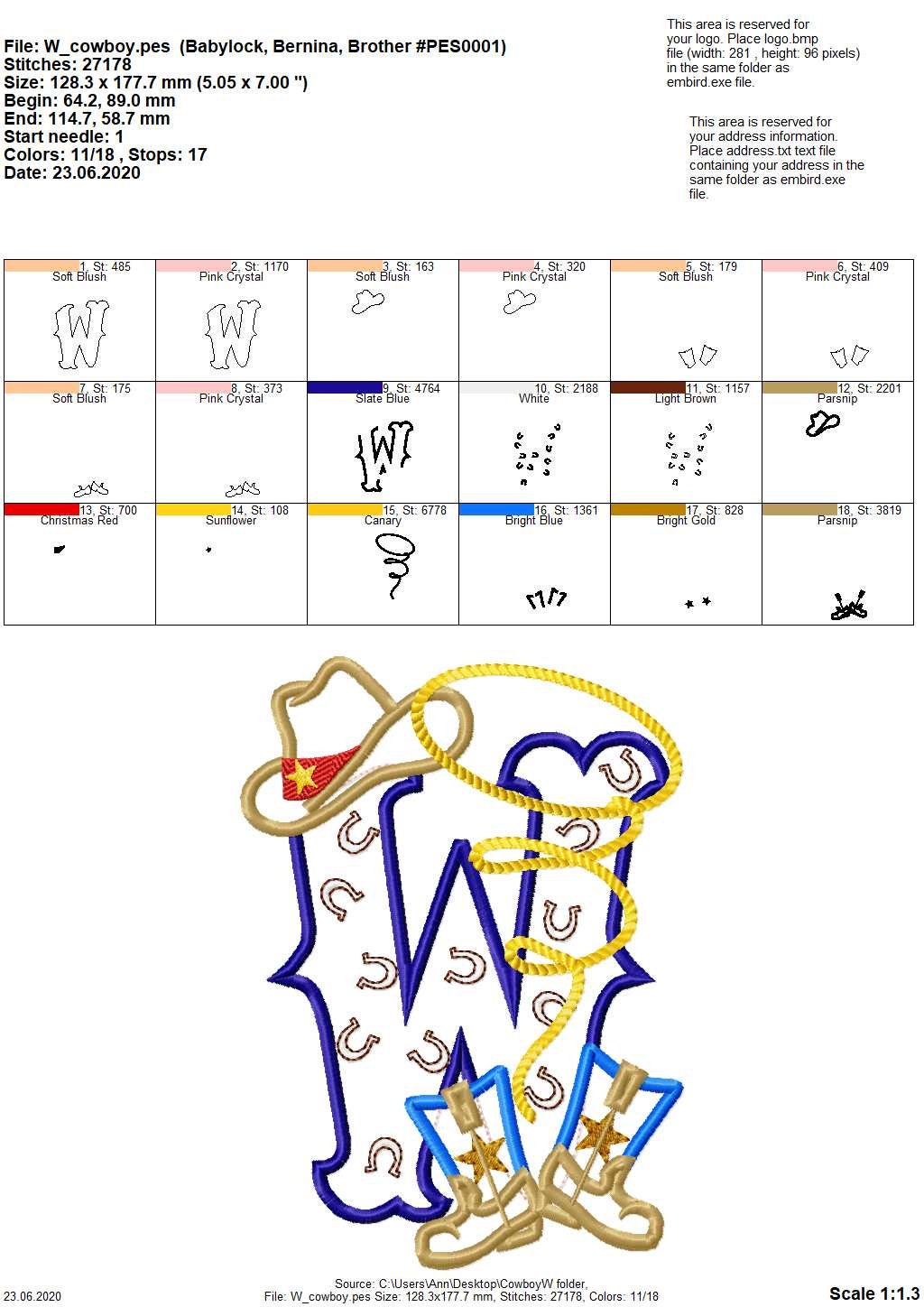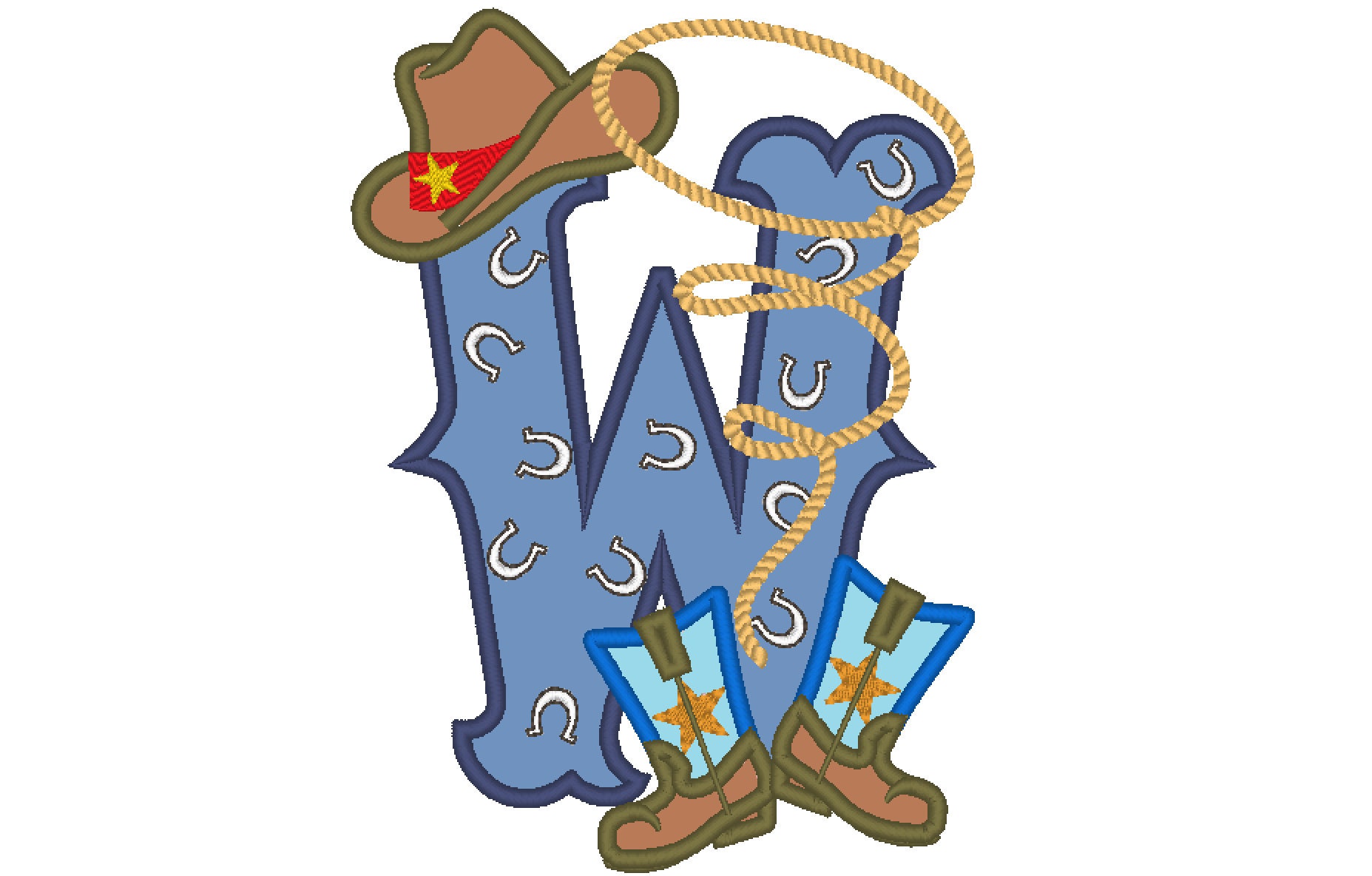
Farm farmer Cowboy rodeo lasso boots and hat applique letter W with bandanna motif, letter W only machine embroidery applique design for hoop size 5x7
Letter W